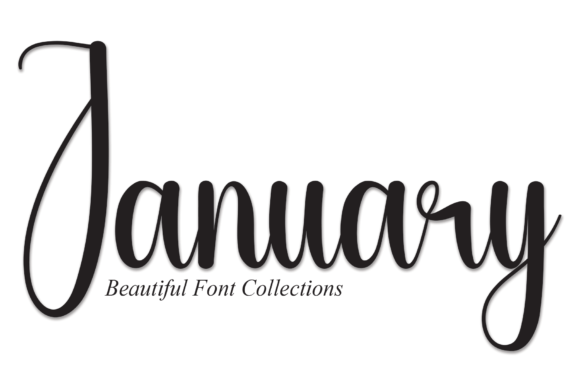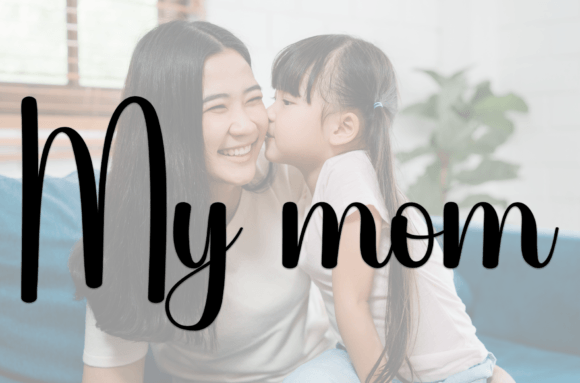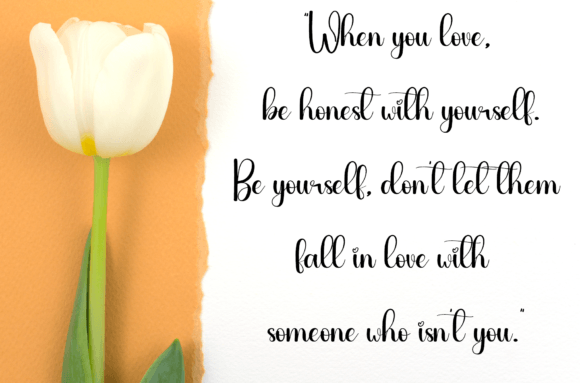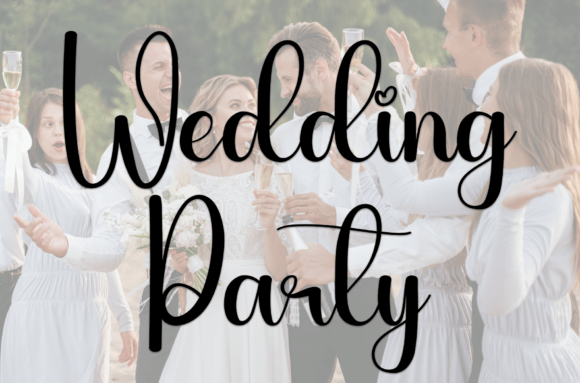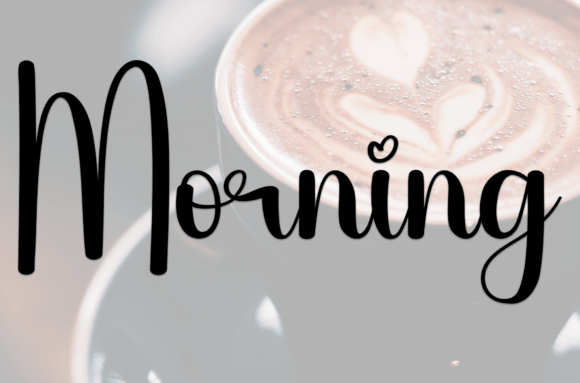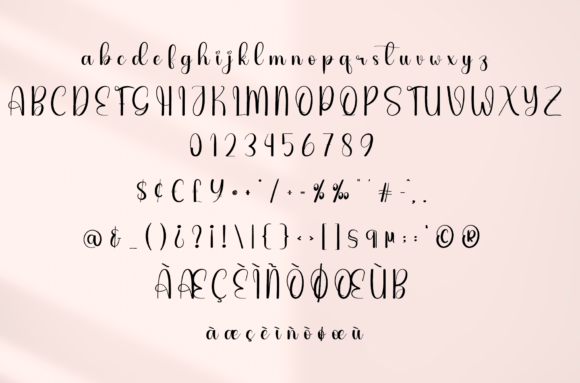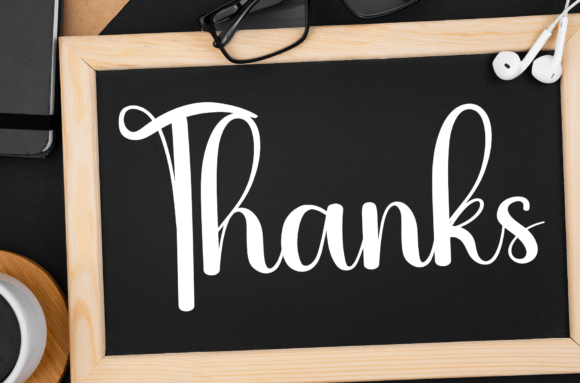
January Font
What Is January Font?
January is a sweet and friendly handwritten font designed to bring a warm, playful feel to your creative projects. With its cute letterforms and joyful style, this font instantly adds personality to any design. Because it’s crafted with care, January is perfect for both personal and professional uses.
You’ll love how easily it transforms your ideas into eye-catching, inviting designs.
January is a versatile font that works well in a variety of settings. For example, it’s perfect for wedding invitations. Whether you’re designing formal event stationery or casual save-the-date cards, January adds a charming, heartfelt touch.
It also shines in greeting cards and thank-you notes. If you want your messages to feel sincere and fun, this font helps you share every sentiment beautifully.
Additionally, January is an excellent choice for social media graphics. Whether you’re posting quotes, promotions, or announcements, its playful strokes make your content stand out.
You can also use it in branding and packaging to give your business a unique, approachable look. From product labels and event signage to DIY crafts and personalized gifts, this font adapts easily to any design project.
Why Should You Choose January Font?
There are many reasons to include January in your font collection. First, it stays clear and readable at any size. Whether you’re using it for headlines or small captions, each letter remains crisp and balanced.
It also pairs beautifully with modern serif or sans-serif fonts, making it easy to create clean, cohesive layouts.
Designers love how polished it looks immediately, saving time while achieving a professional finish.
January Font brings warmth, friendliness, and a sense of fun to any project. For example, if you want your designs to feel approachable and lively, this font makes it effortless.
Even minimalist layouts become more engaging with January’s cute curves and joyful details. Whether you’re creating wedding stationery, social media posts, or product packaging, your work will look polished and inviting.
Using a high-quality handwritten font also shows your attention to detail, helping you build trust and leave a positive impression.
January Font is more than just a typeface—it’s a creative companion that brings happiness and charm to every project. From invitations and cards to branding and social media, this font adapts seamlessly and elevates any design.